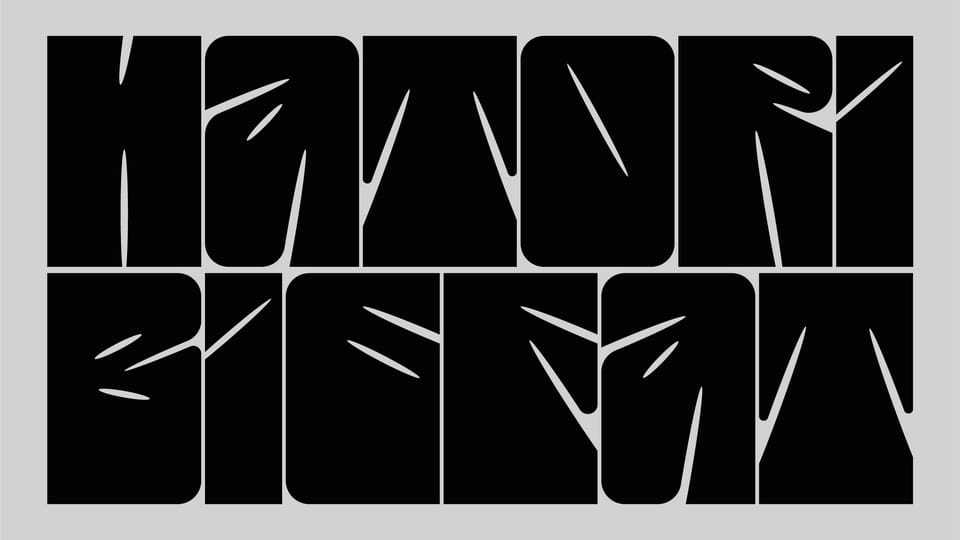
Download Hatori Fat font, an extra-bold, condensed display typeface with sharp, aggressive, and modern character, designed to deliver strong visual impact.